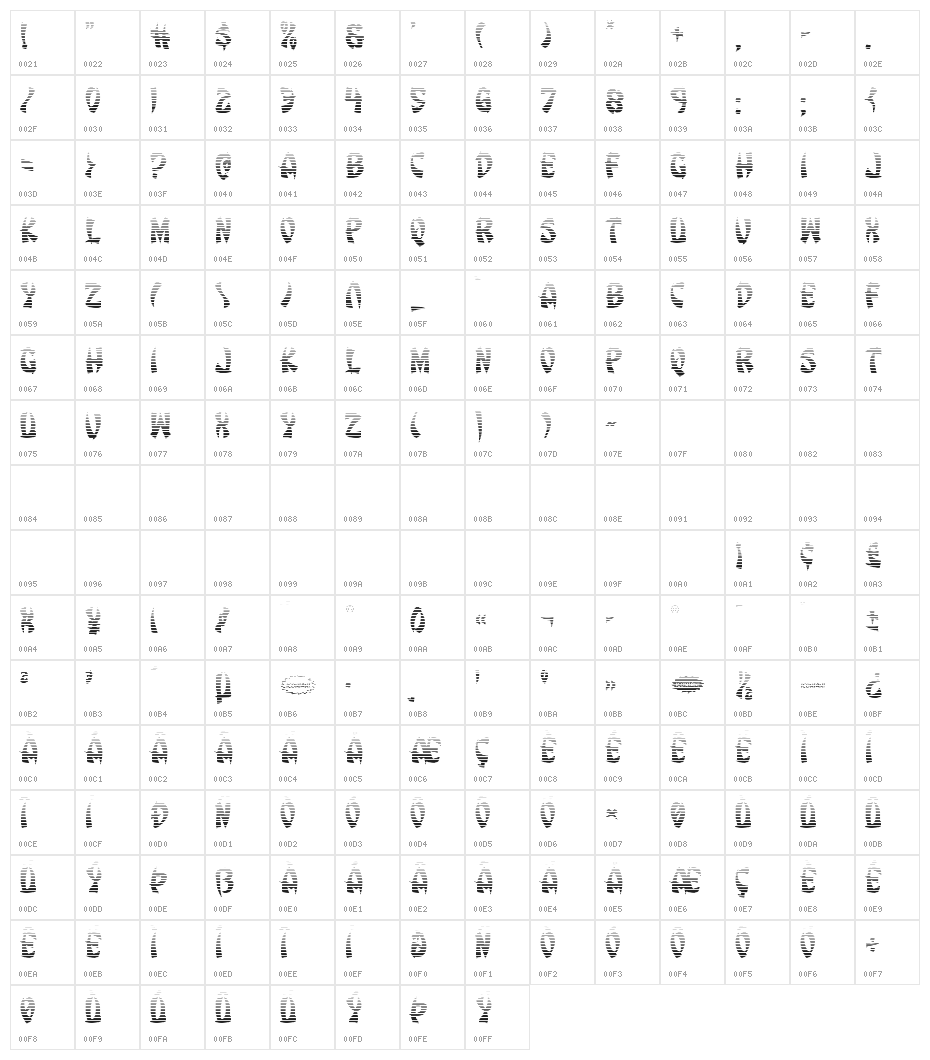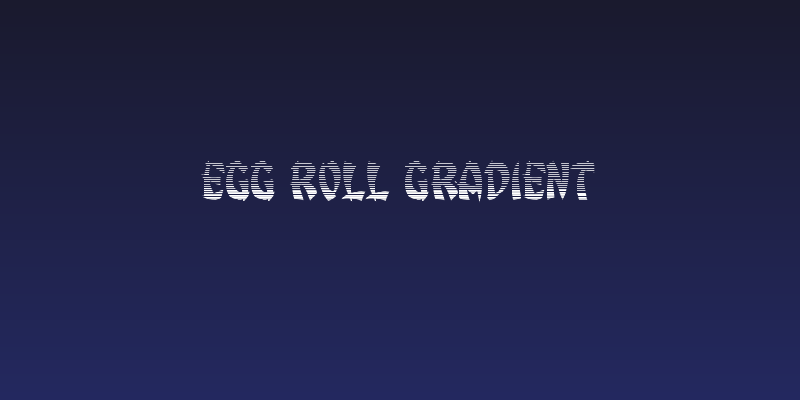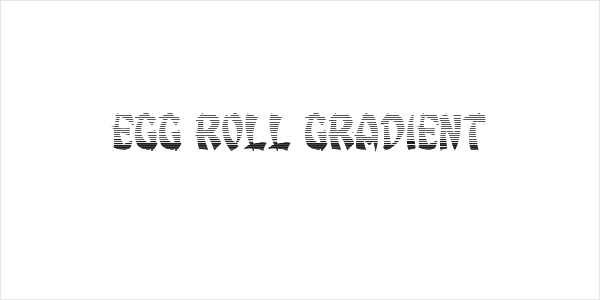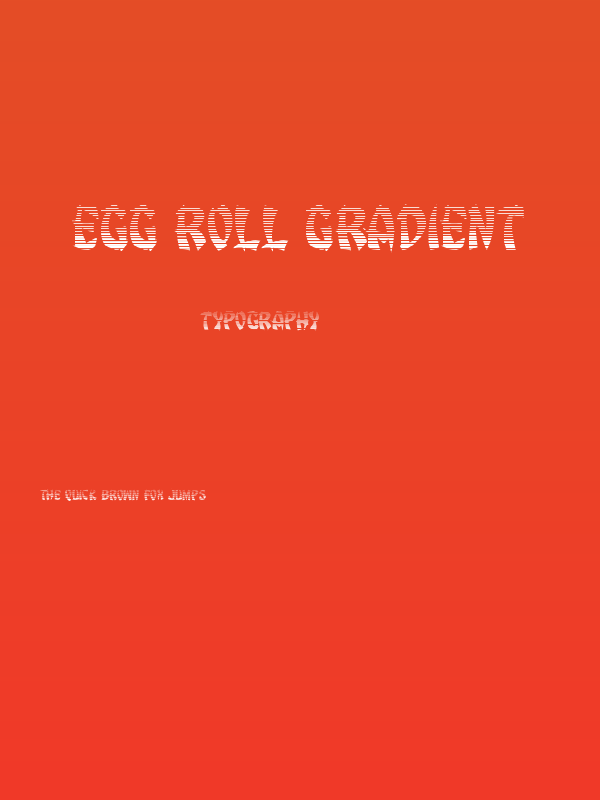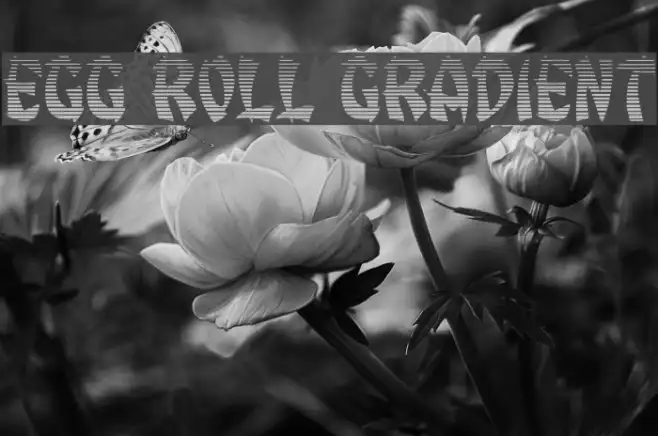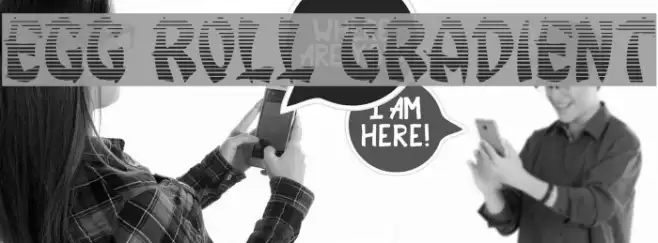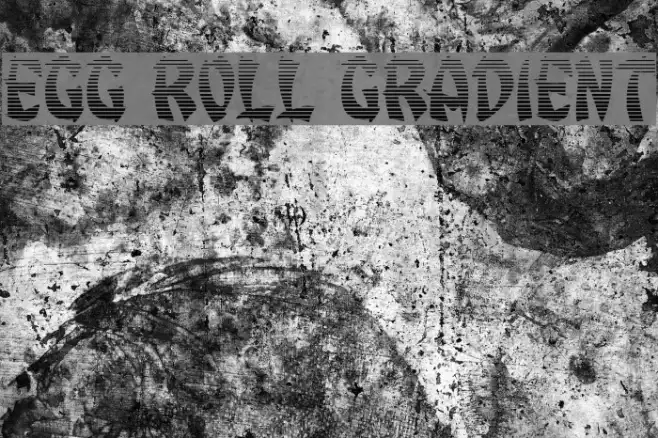
Egg Roll Gradient Font
Egg Roll Gradient Description
This font features a bold and dynamic design with a unique striped pattern running horizontally through each character. The letters are robust and slightly condensed, giving them a strong presence. The alternating black and white lines create a sense of movement and energy, making it ideal for eye-catching designs. The uppercase and lowercase letters maintain a consistent style, while the numbers and special characters are equally bold and distinctive. This font's playful yet assertive appearance makes it suitable for creative and modern projects.